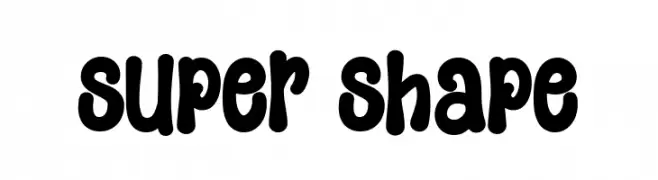
A bold, playful font with rounded, thick strokes and a bubbly appearance.
A bold, rounded font with a playful and friendly style.
A playful, rounded font with bold, smooth curves and a whimsical charm.